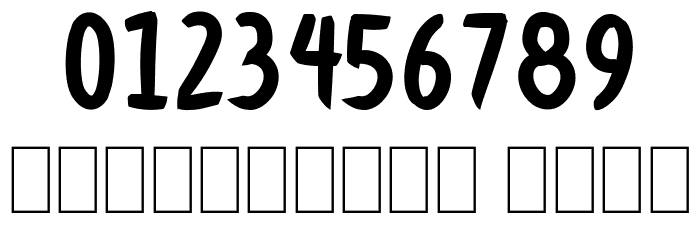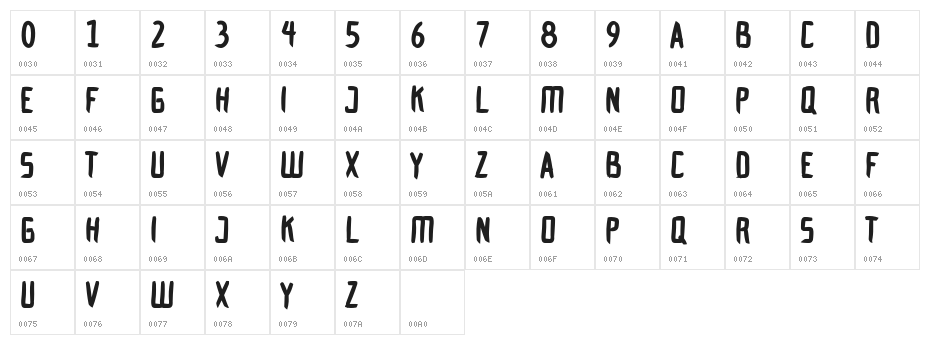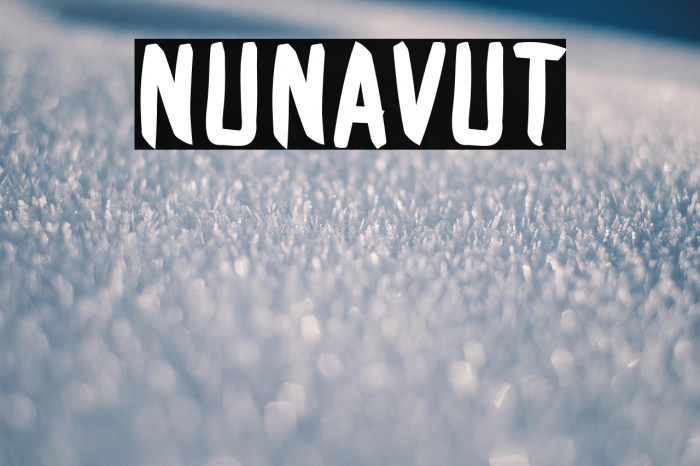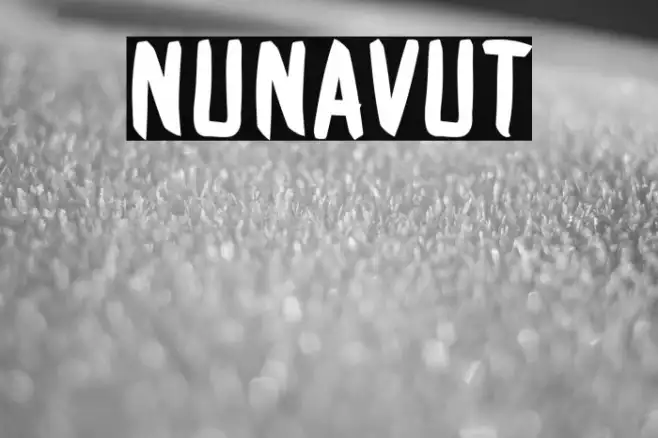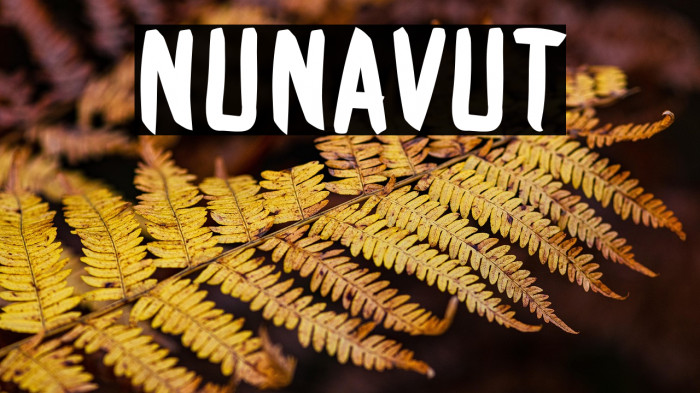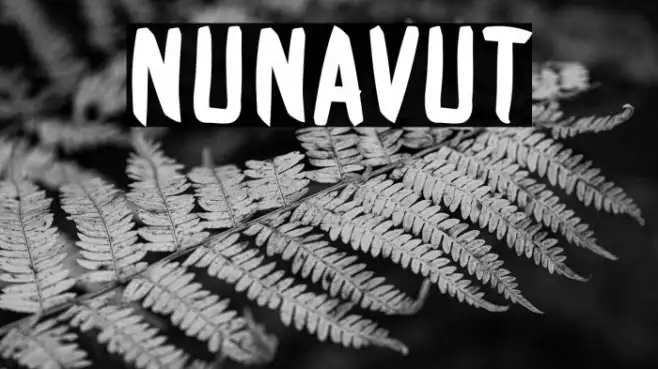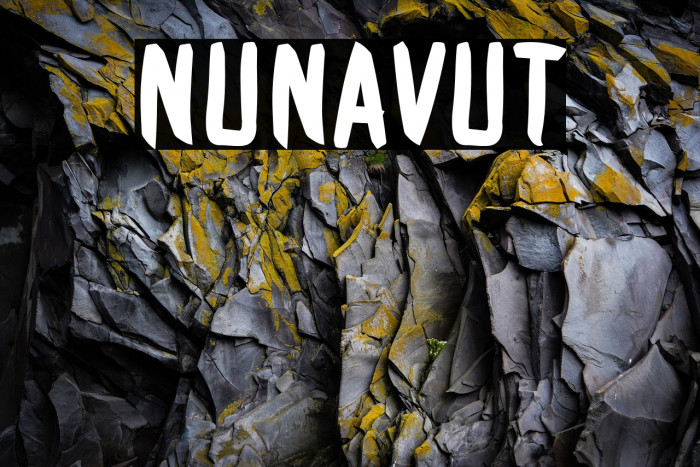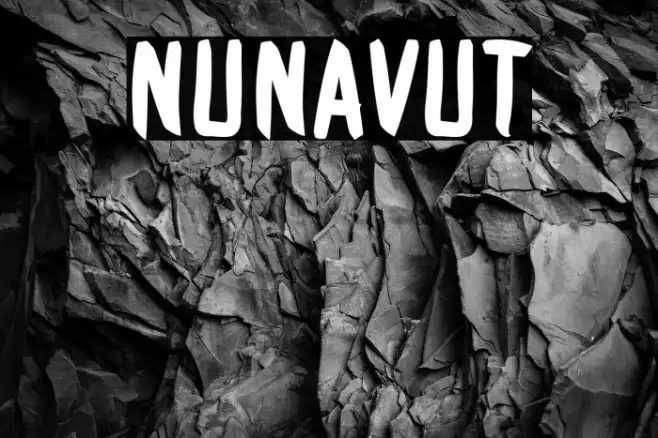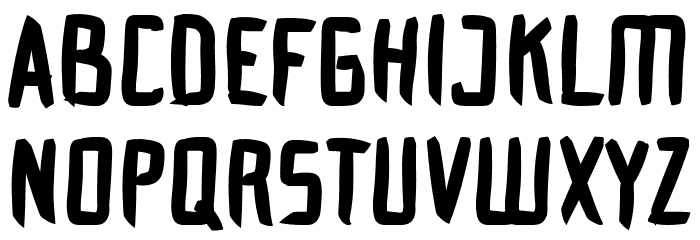
Nunavut Font
Nunavut Description
This font features a bold and dynamic style with a hand-drawn appearance, characterized by its thick, uneven strokes and slightly irregular shapes. The uppercase letters are prominent and convey a sense of strength and individuality, while the numbers maintain a consistent style that complements the alphabet. The overall design is playful yet assertive, making it suitable for projects that require a touch of creativity and boldness. The font's unique character is further enhanced by its slightly condensed width, which adds to its distinctiveness.
| Proposed Projects | Ideal for poster designs, branding projects, and creative headlines that require a bold statement. |